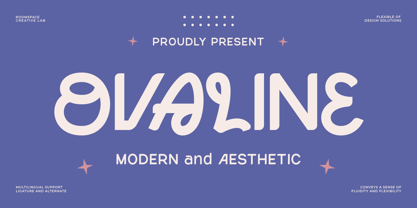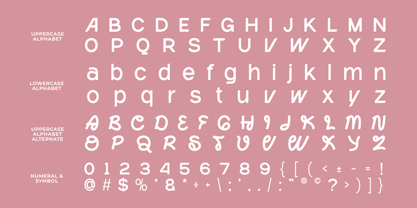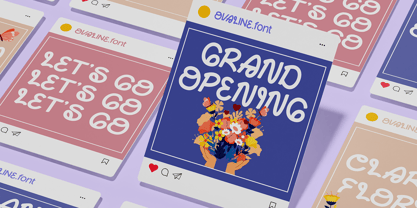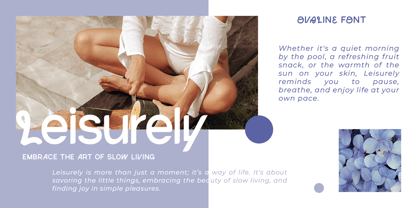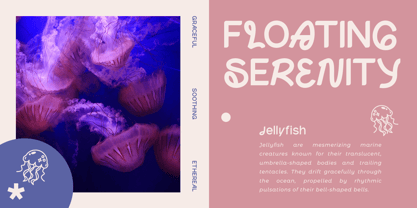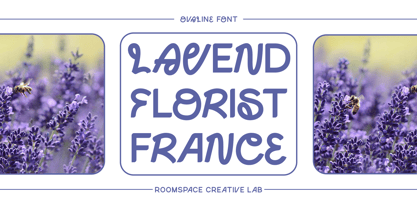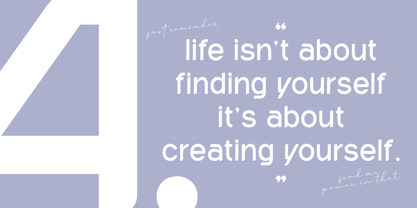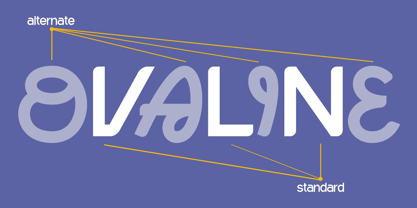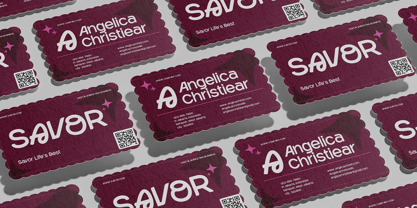
Ovaline
by Jafar07
The Ovaline Font Family was designed by Bakhrudin Ja'far and published by Jafar07. Ovaline contains 1 styles. More about this family
Ovaline is a modern and aesthetic display font designed to bring uniqueness and creativity to your projects. This sans-serif typeface features smooth curves, and playful design, making it perfect for branding, editorial designs, packaging, and social media graphics.
With a touch of fluidity and flexibility, Ovaline offers a stylish and versatile look that adapts beautifully to contemporary designs. Whether you’re working on logo designs, fashion branding, or minimalist posters, this font ensures readability while maintaining a distinct personality.